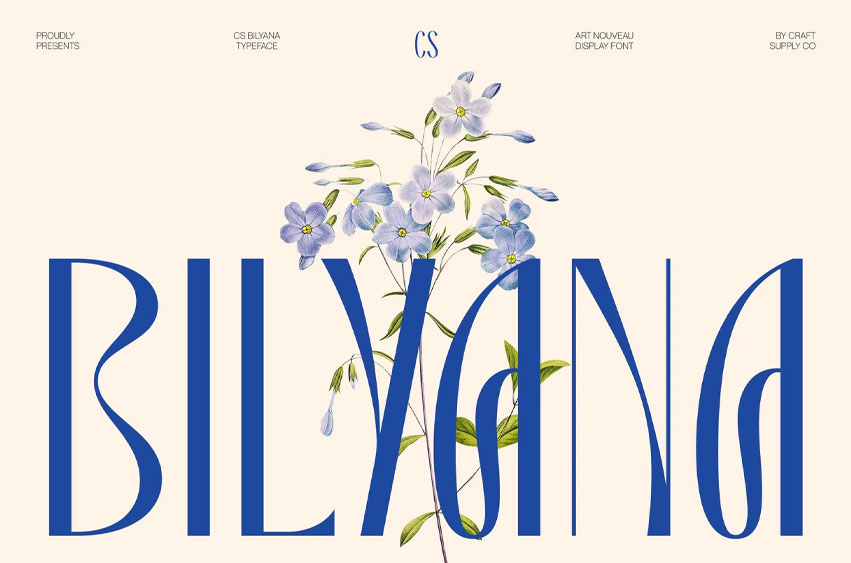
CS Bilyana Font Art Nouveau Display Font: Where Decorative Elegance Meets Modern Editorial Luxury Expressive Letterforms with Timeless Sophistication This is an Art Nouveau display font inspired by modern editorial typography with expressive decorative details. Featuring dramatic high-contrast strokes, graceful curves, elongated letterforms, and unique artistic terminals, it creates a refined visual identity that feels elegant, luxurious, and unmistakably distinctive.
Decorative Beauty with Editorial Refinement Rooted in the flowing aesthetics of Art Nouveau while embracing contemporary editorial styling, this font balances ornamental charm with modern sophistication. Its carefully crafted details enhance every character, producing typography that feels artistic yet polished, making it ideal for high-end display applications where elegance takes center stage.
Luxurious Character with Creative Expression The combination of sweeping curves, striking contrast, and decorative terminals gives a graceful rhythm that commands attention without sacrificing readability. Its expressive forms evoke creativity, femininity, and timeless beauty, making every headline and logo feel premium and memorable.
Perfect for Fashion Branding, Luxury Packaging, and Editorial Design Perfect for fashion branding, beauty products, magazine headlines, luxury packaging, wedding invitations, premium logos, boutique identities, editorial layouts, and creative visual identities. Its fusion of Art Nouveau elegance, modern editorial influence, and decorative sophistication makes it an exceptional choice for projects that demand refinement, artistic character, and lasting visual impact. With its combination of expressive ornamentation and contemporary luxury, its delivers a distinctive and unforgettable typographic statement.